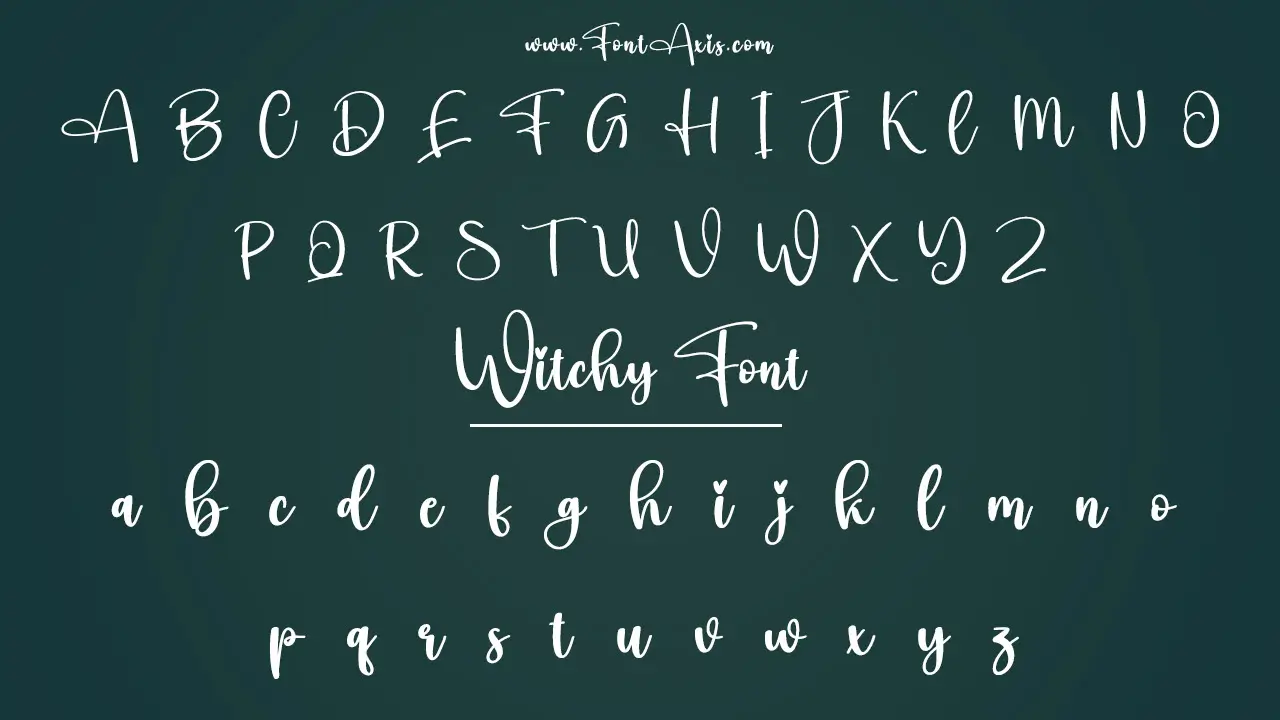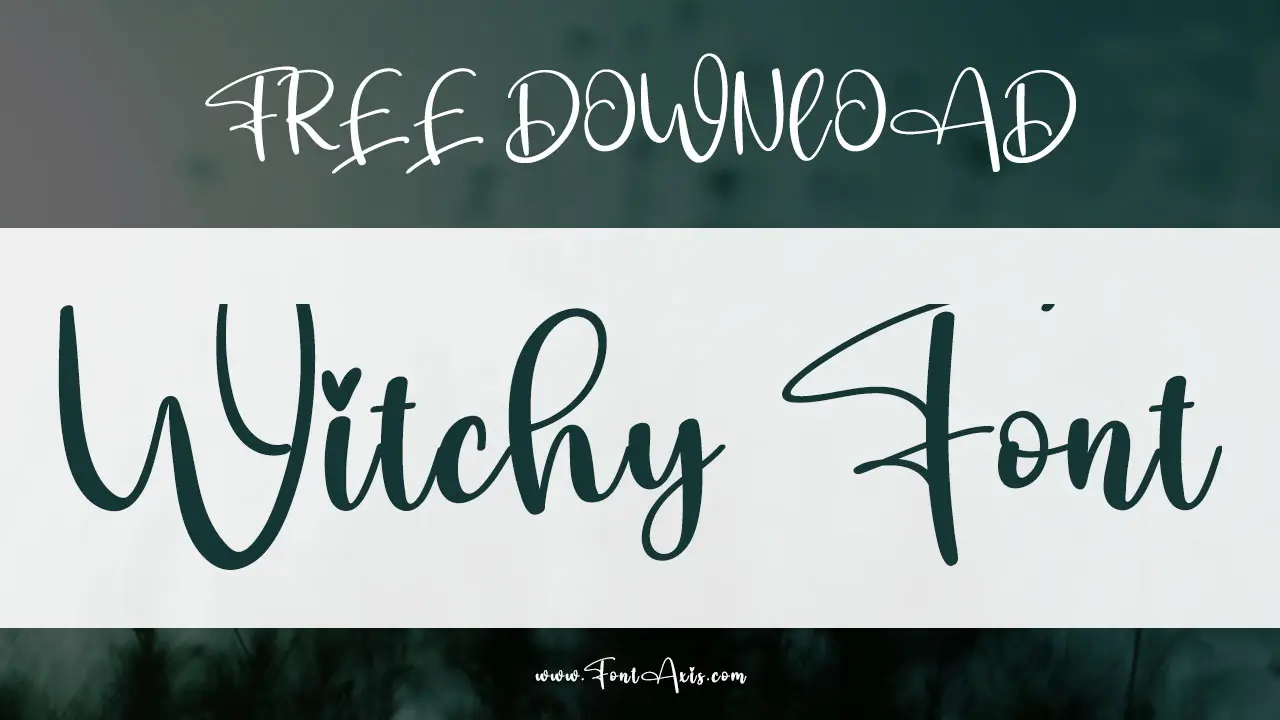
Witchy Font is a captivating handwritten script typeface that brings a spooky, magical charm to any design project. It combines vintage elegance with a modern twist, perfect for Halloween themes, book covers, logos, and banners. For crafting a spellbinding poster or designing for the spooky season, Witchy Font is a versatile and enchanting choice for creative projects.
Name: Witchy Font
Style: Handwritten, Spooky, Script
Designer: Blackletter Studio
Type: Display Font
Witchy Font Family Includes
- Witchy Regular
Where Witchy Font Is In Use
- Halloween-themed posters and banners
- Book covers with a witchcraft or magical theme
- Branding and logos for spooky or vintage products
- Spellbinding greeting cards
- Social media graphics for spooky season campaigns
- DIY projects like printed materials and t-shirts
Witchy Font is a versatile handwritten script font that blends spooky charm with creative elegance. Ideal for everything from Halloween posters to magical book covers, this spellbinding typeface works seamlessly with serif, sans-serif, and decorative fonts. Whether you’re creating logos, banners, or DIY printed materials, Witchy Font will enchant your projects with its unique vintage and retro appeal.
Witchy Font is ideal for various creative projects, particularly those with a mystical or Halloween-themed aesthetic. It’s perfect for designing spooky invitations, Halloween party flyers, or magical book covers.
The font’s unique design with sharp edges and quirky flourishes gives it a playful and mysterious vibe, making it great for horror-themed posters, game design related to magic, and even spooky social media content. The font helps evoke a dark, whimsical atmosphere, whether for print or digital.
Yes, Witchy Font includes uppercase and lowercase letters, making it flexible for various designs. The font retains its distinct charm and readability even in lowercase form, which is essential for text-heavy projects. This allows you to use it in everything from headlines to body text, ensuring that you can maintain the font’s spooky, enchanting aesthetic while keeping your designs legible and cohesive.